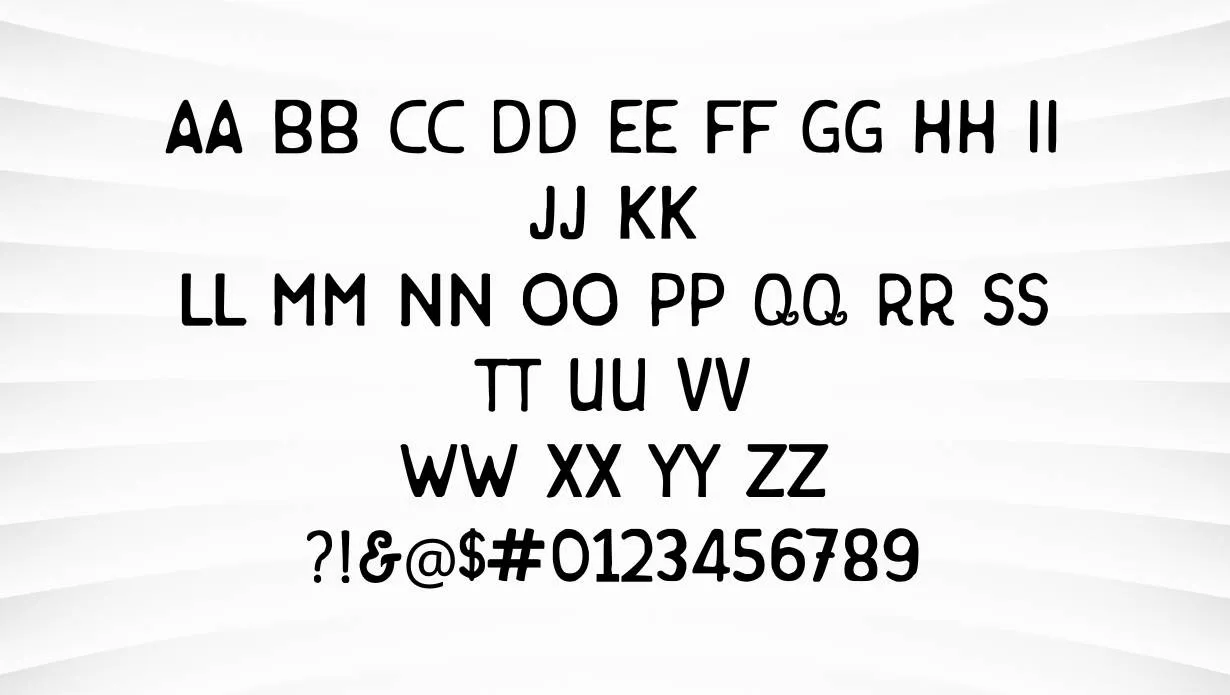
The Vaase font is a friendly and casual typeface often used in designs that aim for a welcoming and approachable feel. Its rounded and cheerful letters make it perfect for conveying a warm and informal message.
| Name | Vaase Font |
| Designer | Ian Lynam |
This font is commonly used in social media graphics, casual invitations, or fun brand identities. The weight of Vaase font tends to be on the lighter side, giving it a gentle and airy appearance.
Its width is usually standard, allowing for readability in various designs, particularly in smaller text applications like captions or quotes.